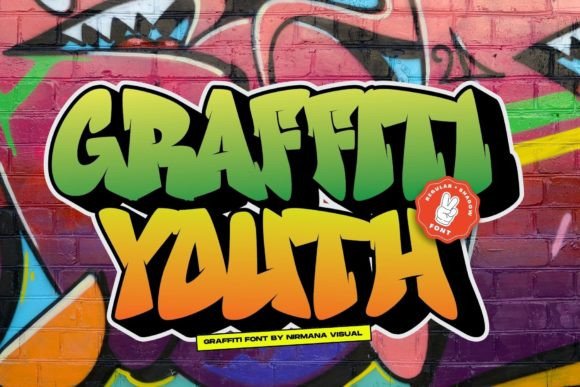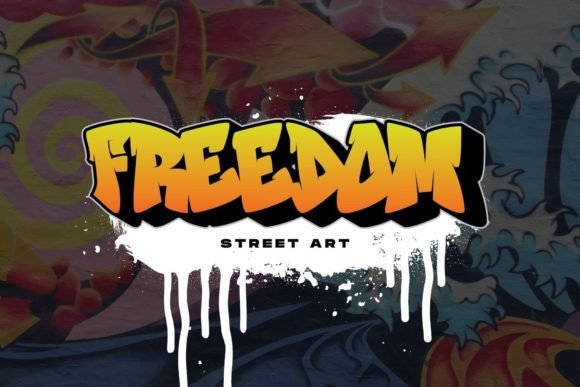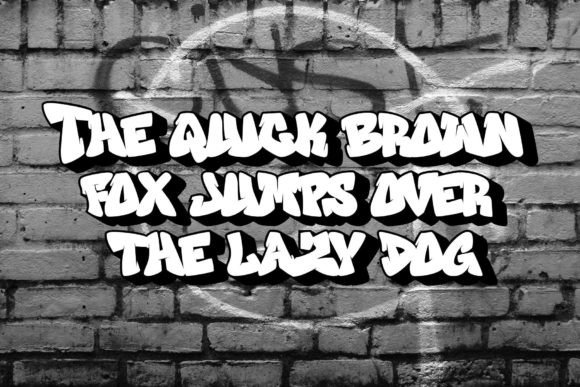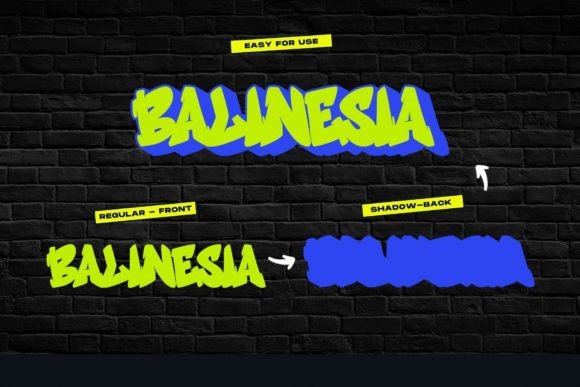
Graffiti Youth Font: A Bold Display Font for Urban Design & Cricut Crafts
Crafted with precision, the Graffiti Youth Font is ready to bring your ideas to life. Graffiti Youth is a fun, urban-style display font. This font is suitable for designs like logos, advertising, apparel, jerseys, sportswear, skateboard designs, and more. Take your concepts to the next level with this stunning font!
Graffiti Youth’s bold, rebellious energy makes it ideal for headlines, posters, and branding projects targeting young, active audiences. It excels in short, impactful statements and works particularly well for streetwear apparel, skate brands, and edgy music promotions. However, its strong character and large x-height make it unsuitable for body text or UI elements requiring high readability.
Consider pairing Graffiti Youth with a clean sans-serif like Futura for a balanced contrast, or a more geometric sans-serif for a modern, urban feel. A classic serif like Garamond could offer unexpected sophistication, while a handwritten script font would add a layer of texture and personality.
The font’s inherent dynamism is best showcased in large sizes. Avoid using it for small text, as the details might become illegible. Remember to maintain sufficient spacing between letters for optimal impact.